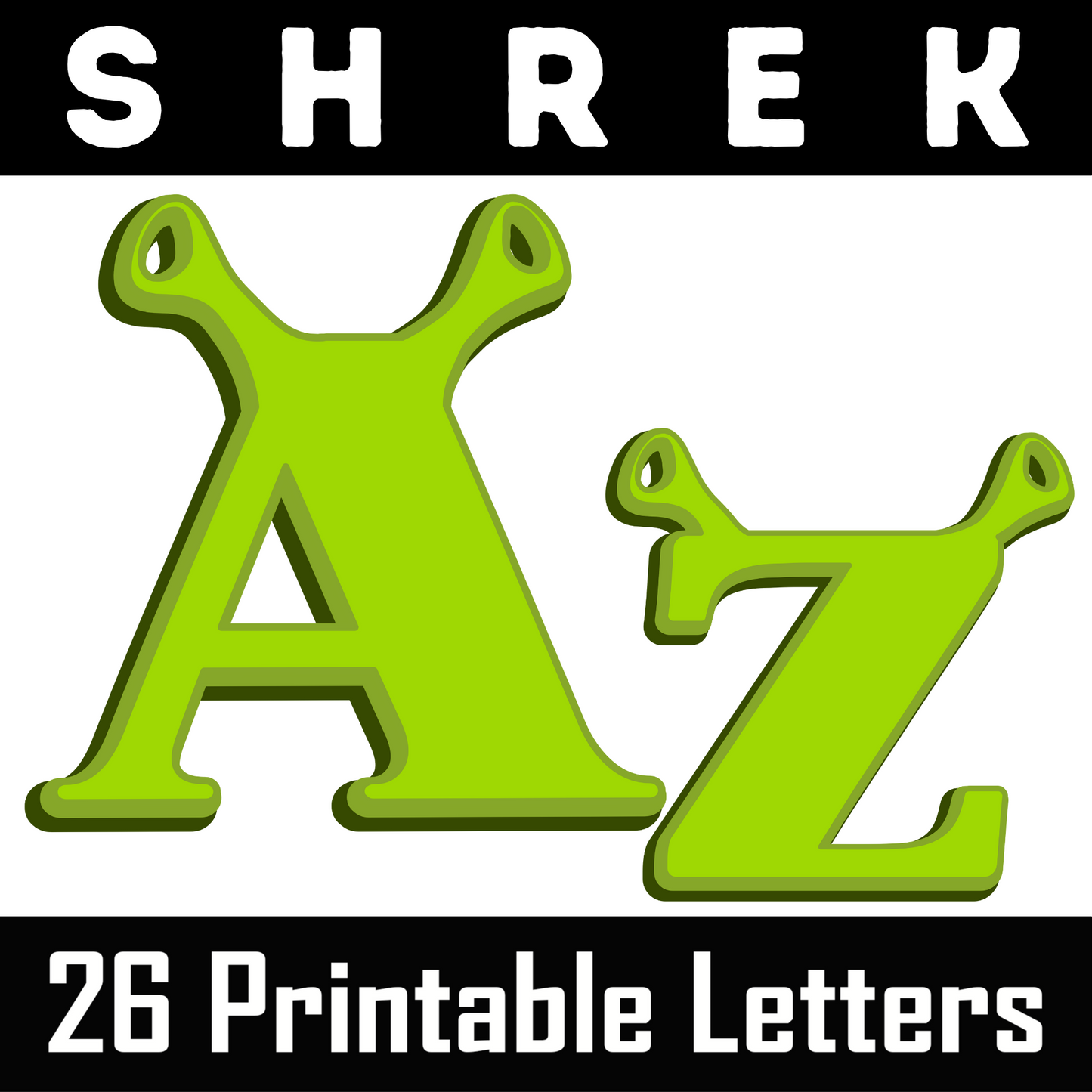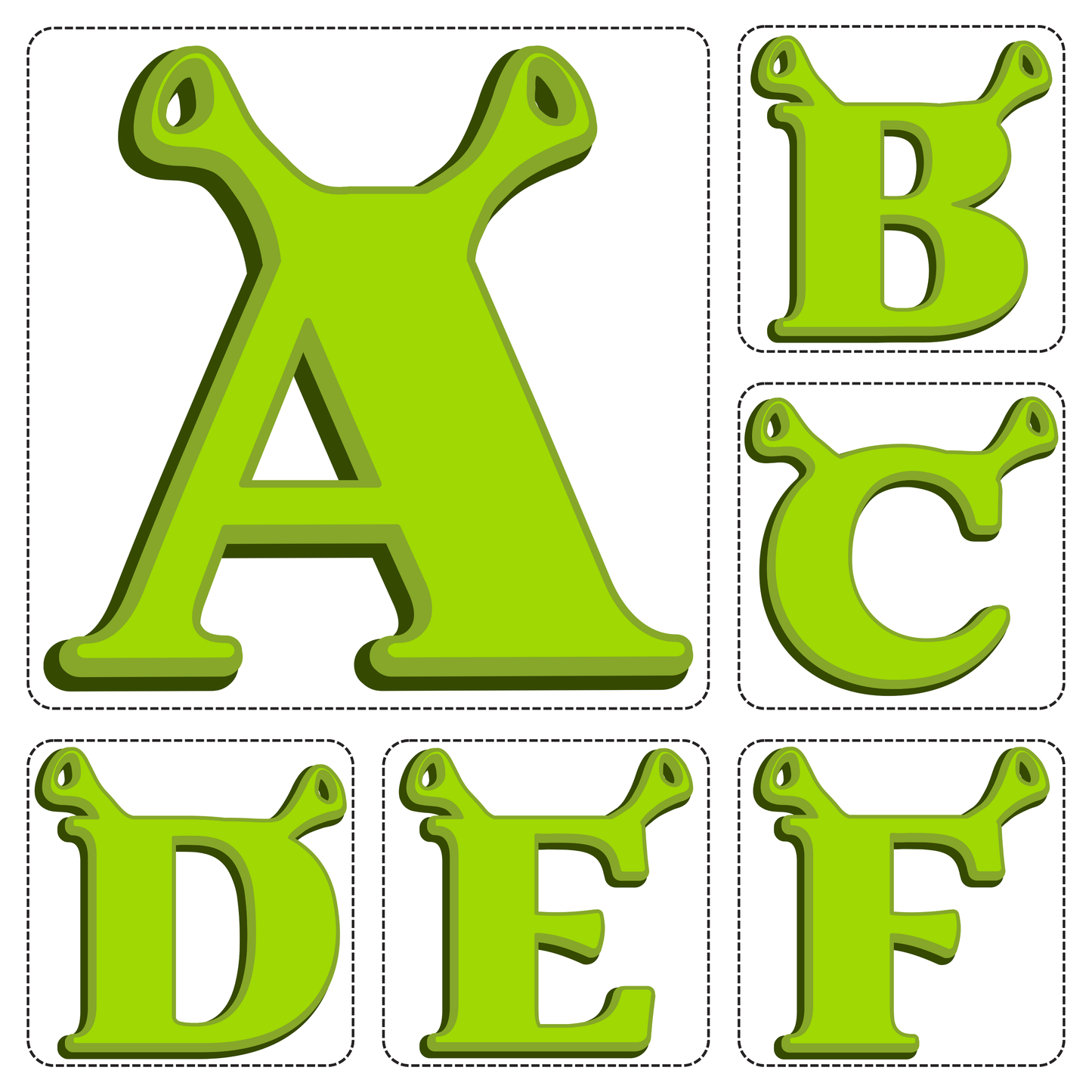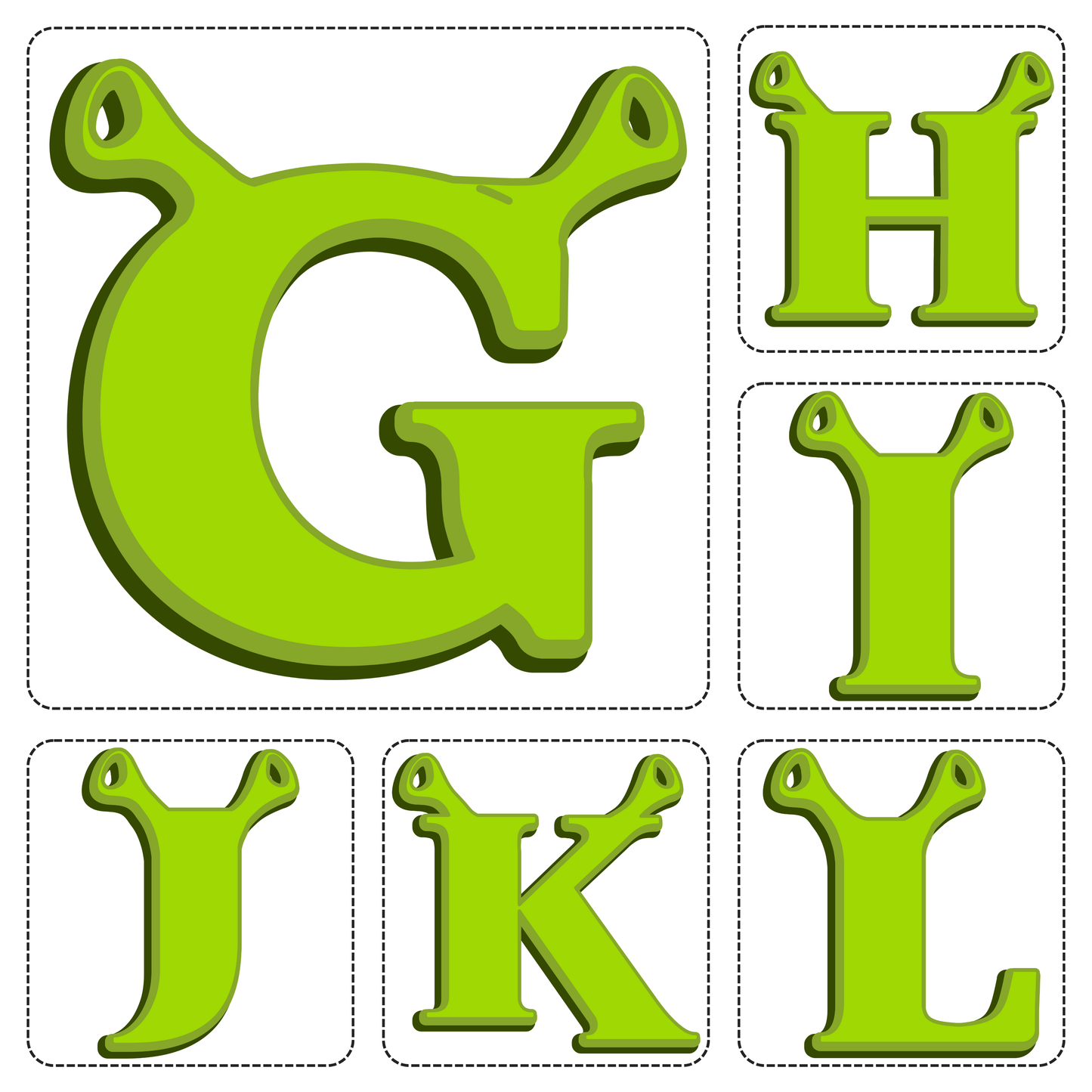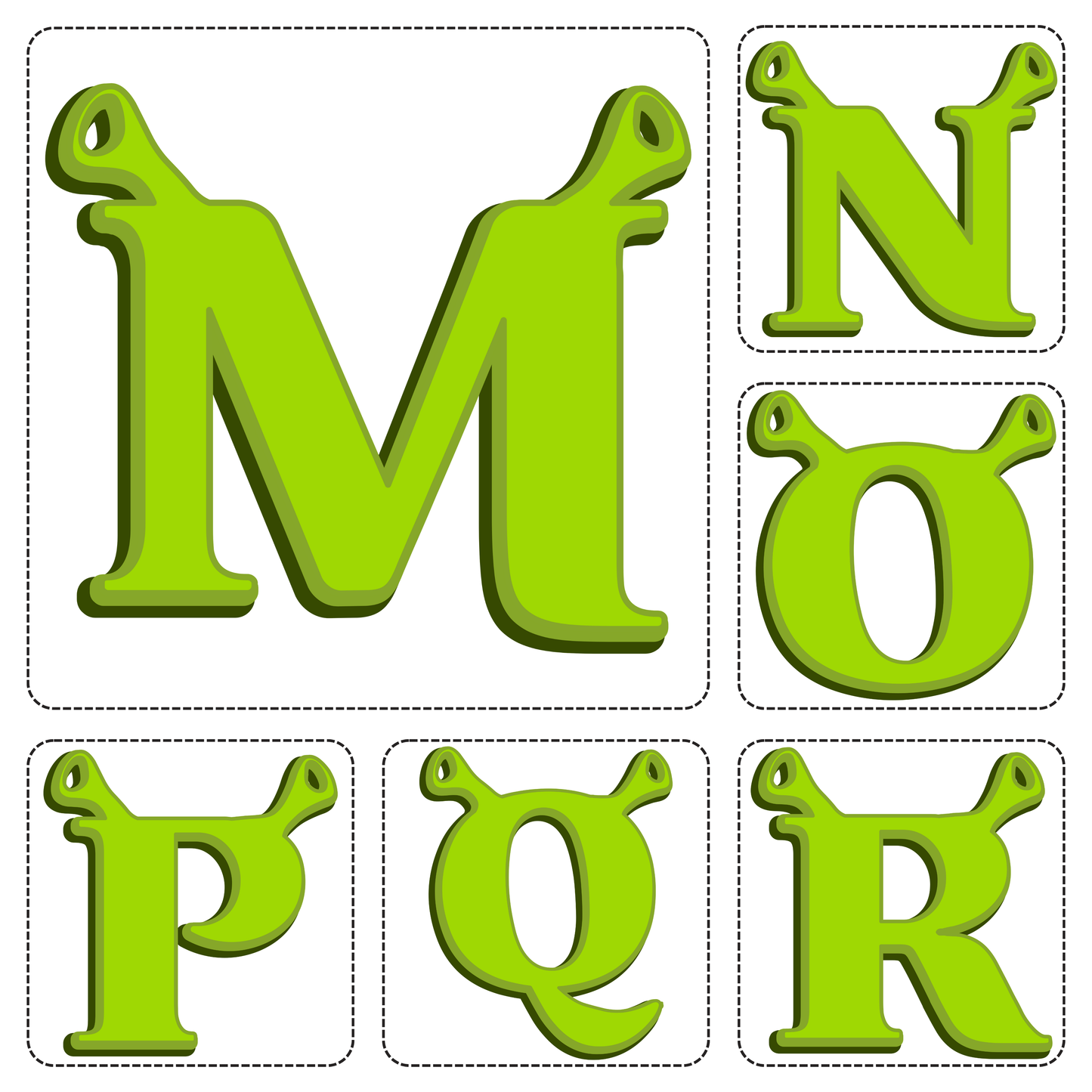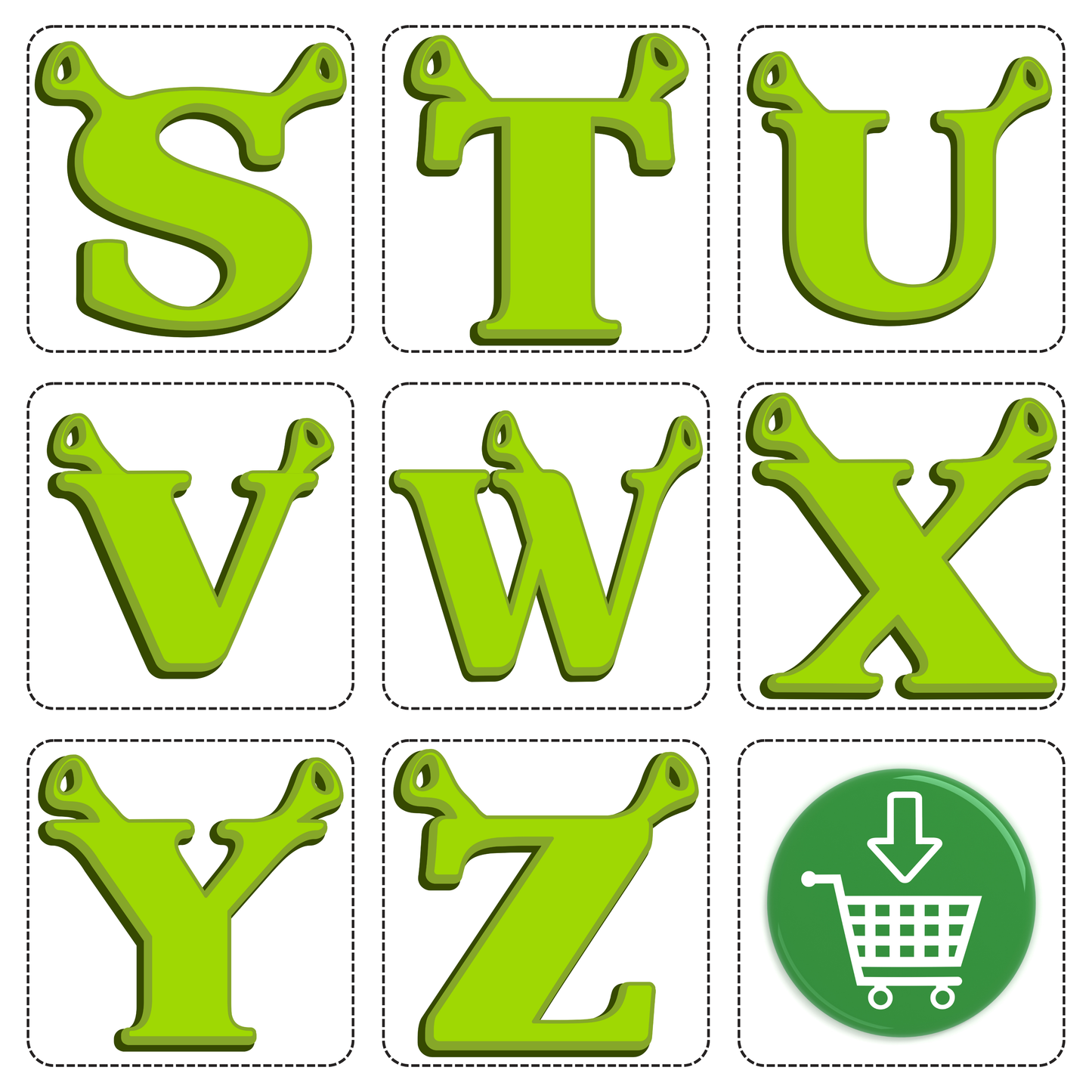
Shrek Alphabet Letters A–Z
Bring the swamp to your classroom or party with this full set of Shrek-style alphabet letters! Each letter from A to Z is bold, green, and topped with iconic ogre ears—perfect for birthday banners, classroom decor, homeschool printables, and fan crafts.